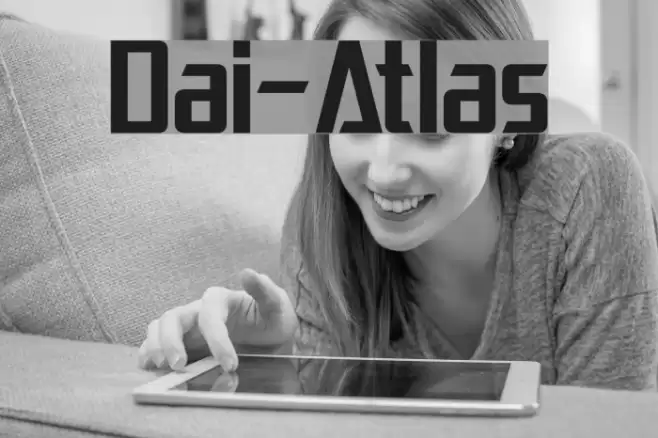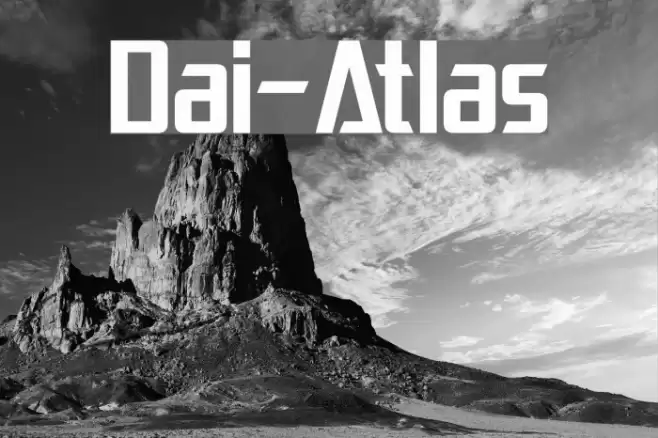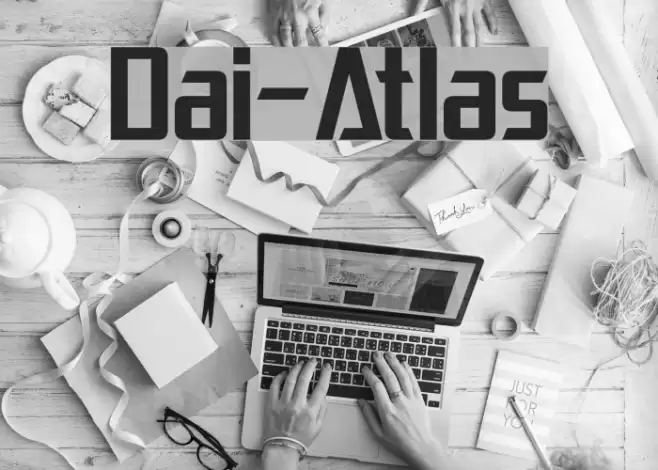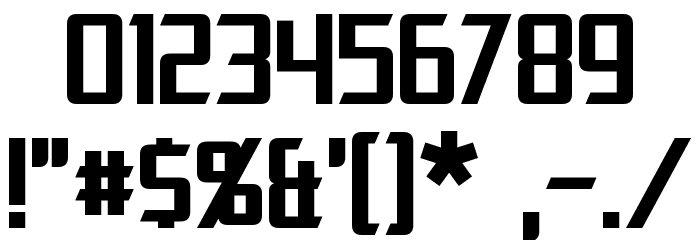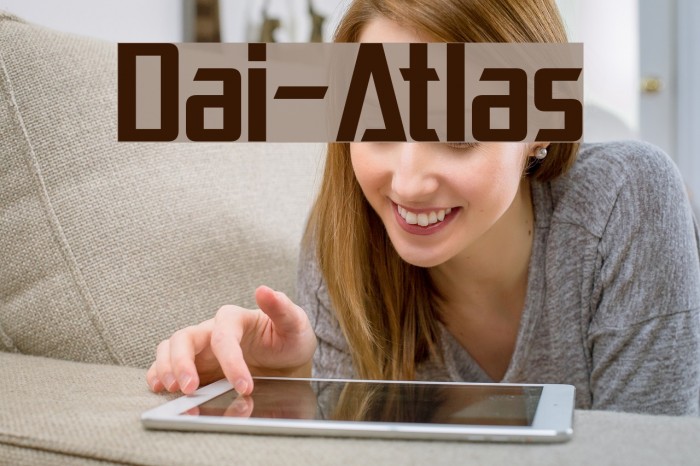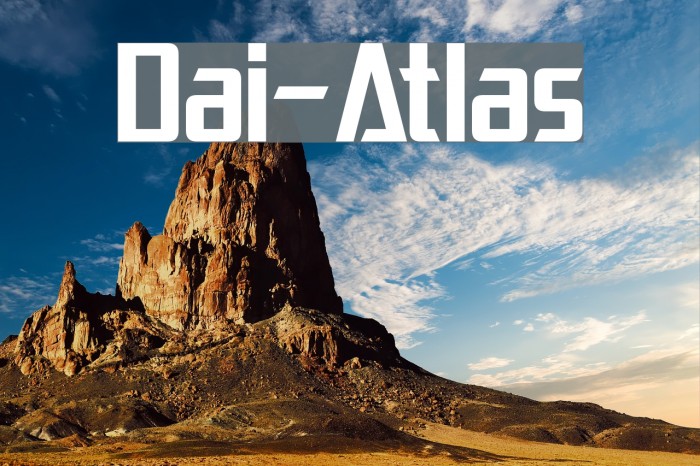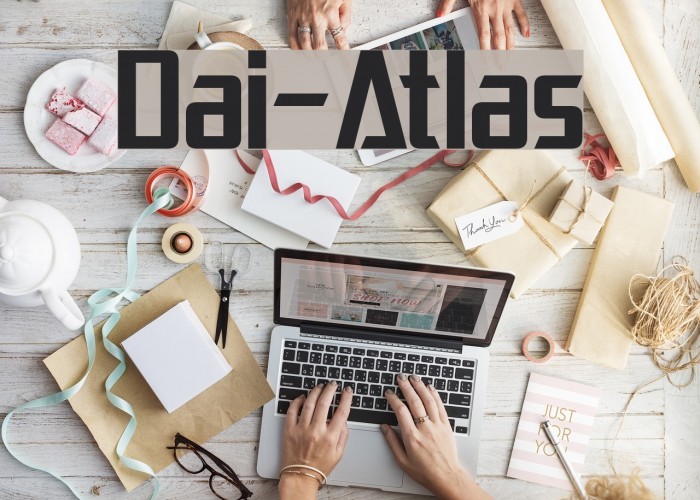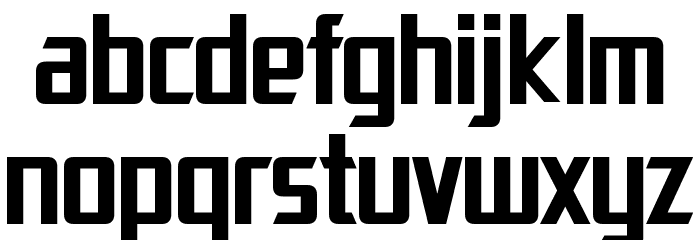
Dai-Atlas Font
Dai-Atlas Description
This font features a bold, geometric design with a futuristic aesthetic. The characters are constructed with sharp angles and clean lines, giving it a modern and dynamic appearance. The uppercase letters are particularly striking, with a uniform height and width that create a cohesive look. The lowercase letters maintain the same geometric style, ensuring consistency across the typeface. The numerals are clear and easily distinguishable, while the special characters complement the overall design. This font's strong presence makes it ideal for impactful headlines and branding projects.
A bold, geometric font with a futuristic and modern aesthetic from Uncategorized fonts.
- Proposed Projects: Ideal for technology branding, sci-fi themed projects, video game titles, and modern advertising.